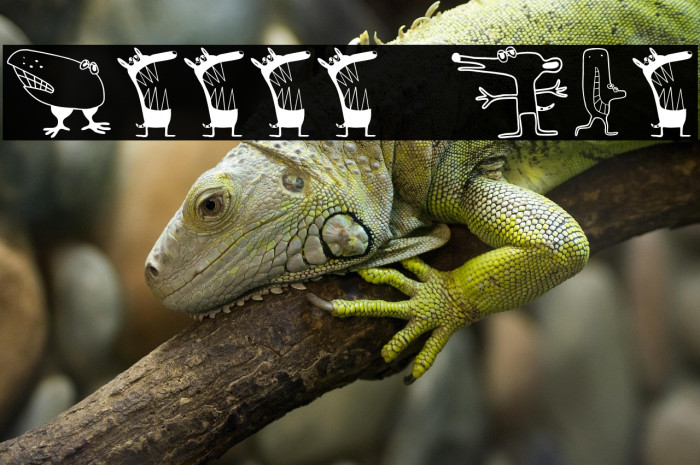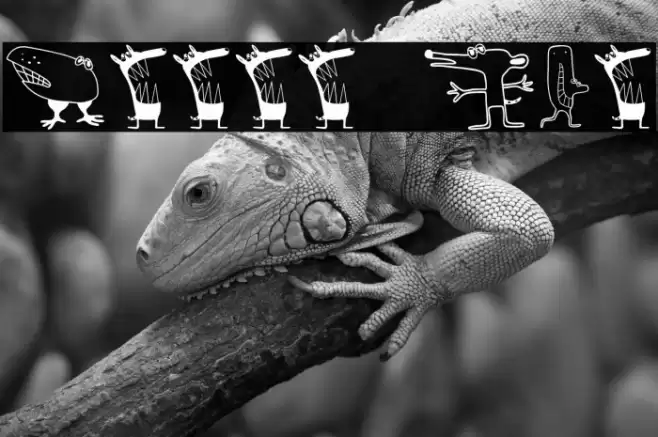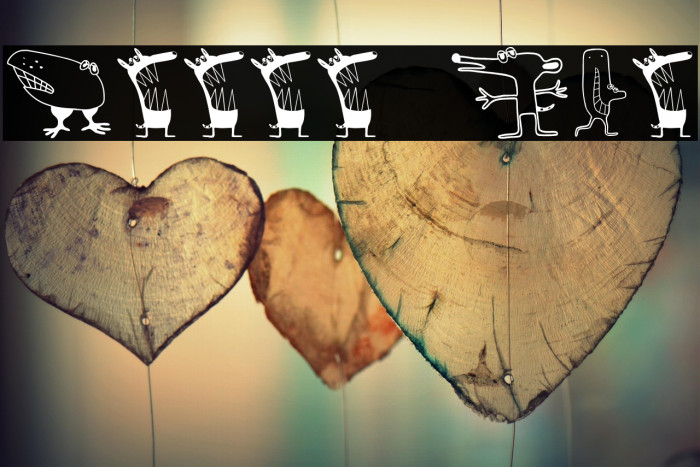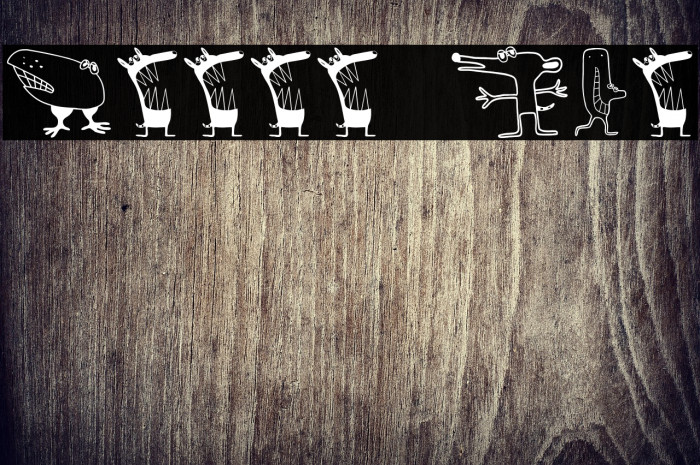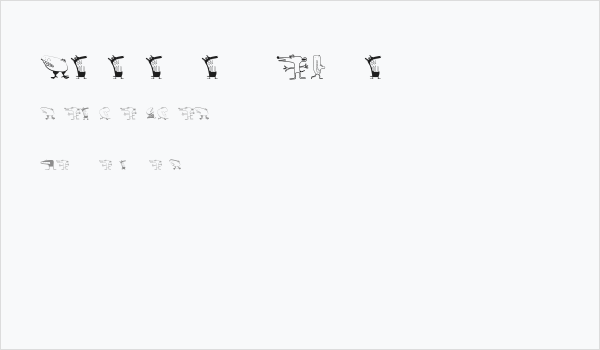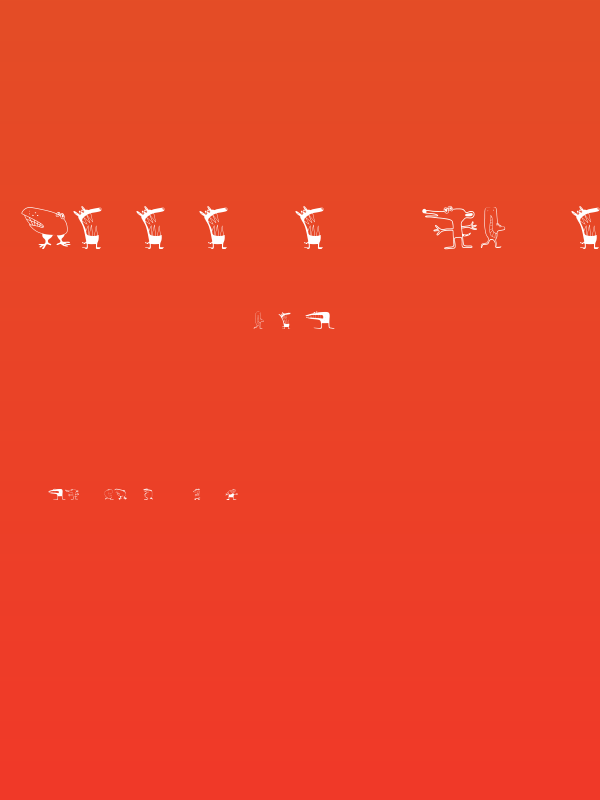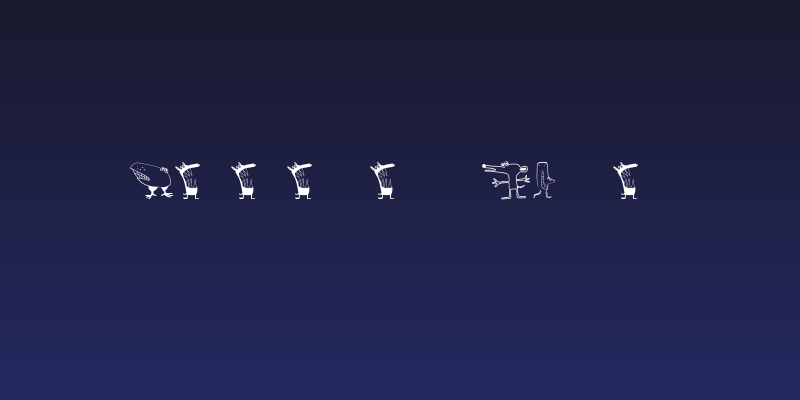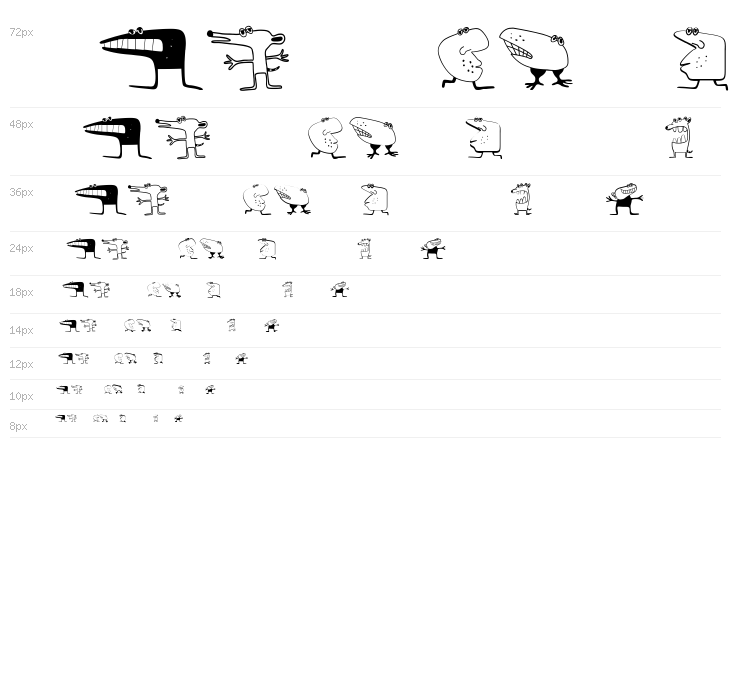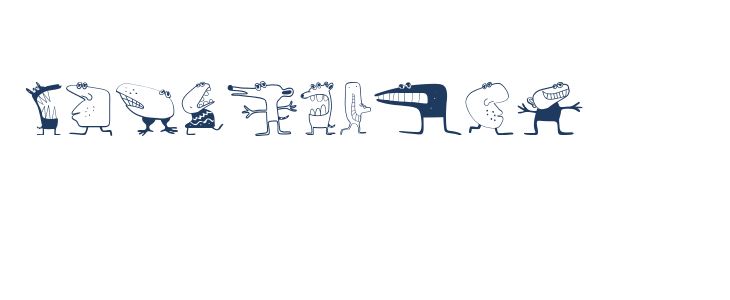
Canavarlar Regular Font
Canavarlar Regular Description
This font is a playful and whimsical collection of character-like illustrations. Each letter is represented by a unique monster, featuring exaggerated features such as large eyes, sharp teeth, and quirky limbs. The style is highly decorative, with a cartoonish and humorous vibe that brings a sense of fun and creativity. The characters are bold and expressive, making them stand out with their distinct personalities. This font is not suitable for traditional text but serves as an artistic representation of letters through imaginative creature designs.
| Use Case | Logos, Posters, Creative Projects |
| Proposed Projects | Ideal for children's books, playful posters, creative branding, and any project requiring a fun and imaginative touch. |